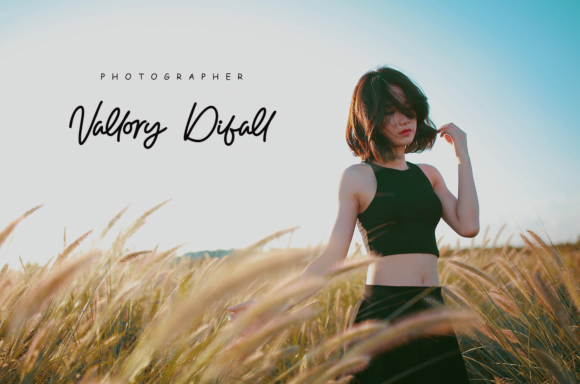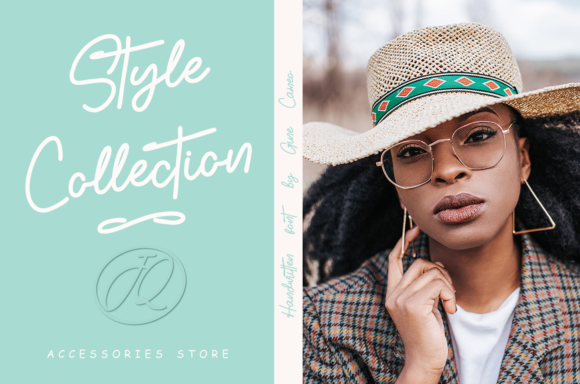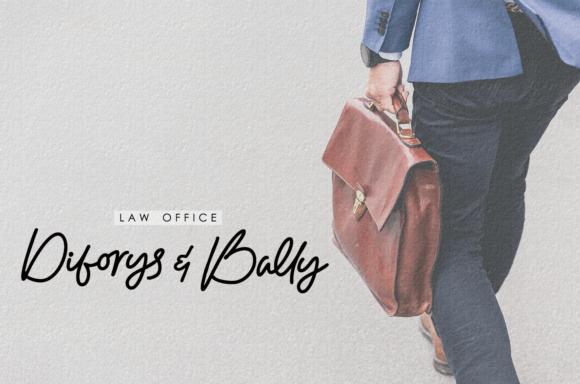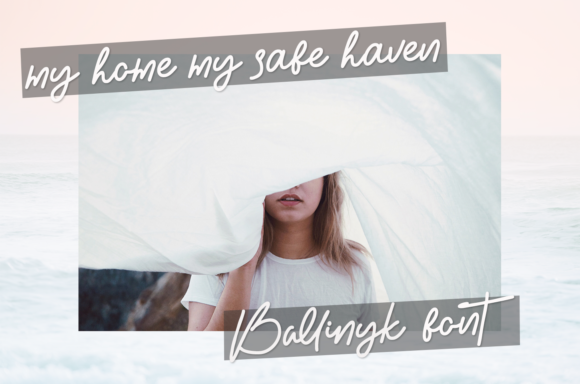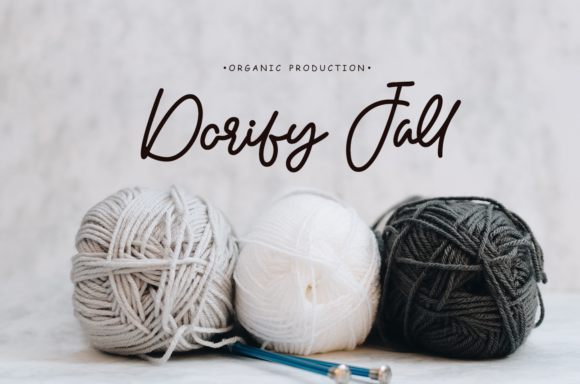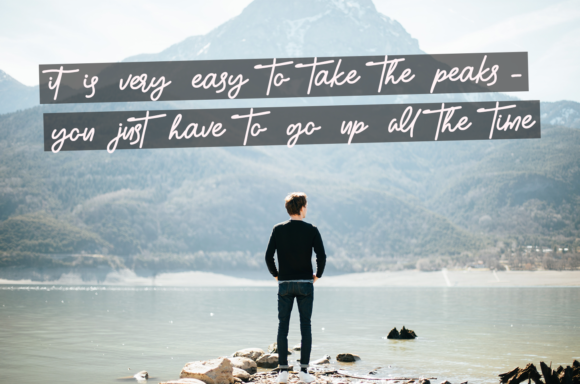
Unleash Your Creativity with the Ballinyk Font
Enter the Ballinyk Font, a stunning handwritten font that embodies the perfect blend of classic calligraphy and modern flair. This exquisite font is designed to be a true favorite among designers, and for good reason. With its versatility and timeless charm, it’s the perfect addition to any project, from elegant invitations to bold branding.
Whether you’re a seasoned pro or just starting out, the Ballinyk Font is an invaluable asset in your design toolkit. Its unique character and sophistication make it a valuable resource for designers looking to create truly memorable and impactful projects.
- Unique Characteristics: Ballinyk Font features a unique blend of modern and vintage elements, with intricate details and ornate flourishes.
Review of Ballinyk Font
I recently had the chance to work with the Ballinyk font, and I wanted to share my honest thoughts on it. Here’s what I think:
✨ What works well:
- Unique style: The Ballinyk font has a distinctive, quirky feel to it that sets it apart from more traditional fonts.
- Good for headlines: The font is perfect for adding a touch of whimsy to headlines and titles, and its bold lines make it great for grabbing attention.
- High-quality glyphs: The font’s glyphs are well-designed and crisp, making it a pleasure to work with.
⚠️ Limitations:
- Limited legibility: While the font is great for headlines, it can be a bit difficult to read in smaller sizes or for extended blocks of text.
- Not suitable for body text: Unless you’re going for a very playful, avant-garde look, I wouldn’t recommend using Ballinyk as a body text font.
Overall impression:
I think the Ballinyk font is a great choice for designers looking to add some personality to their work. While it may not be suitable for every project, it’s perfect for those times when you want to make a statement and stand out from the crowd.
The Ballinyk Font is ideal for:
- Luxury branding and marketing materials
- High-end fashion and beauty design
To get the most out of Ballinyk Font, use its unique features, such as:
- Ligatures and swashes to create a more elegant and refined look